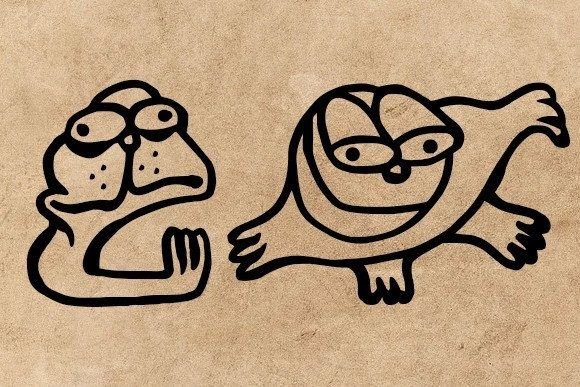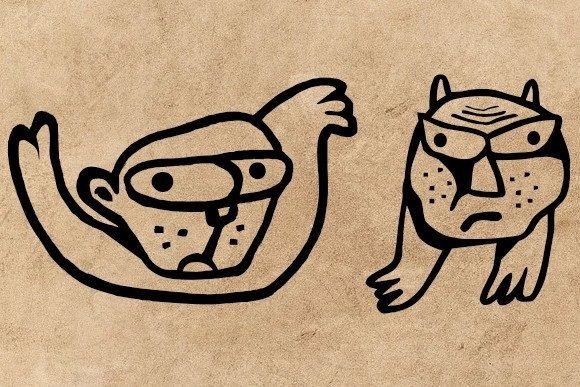
Introduction to Otu Font
Otu is an awesome dingbat that will inspire your best projects.
It will look perfect on shirts, banners, and posters .
Why Choose Otu Font?
Otu Font offers exceptional quality and versatility, making it a valuable addition to your design toolkit. Whether you’re creating for personal projects or commercial use, Otu Font delivers professional results.